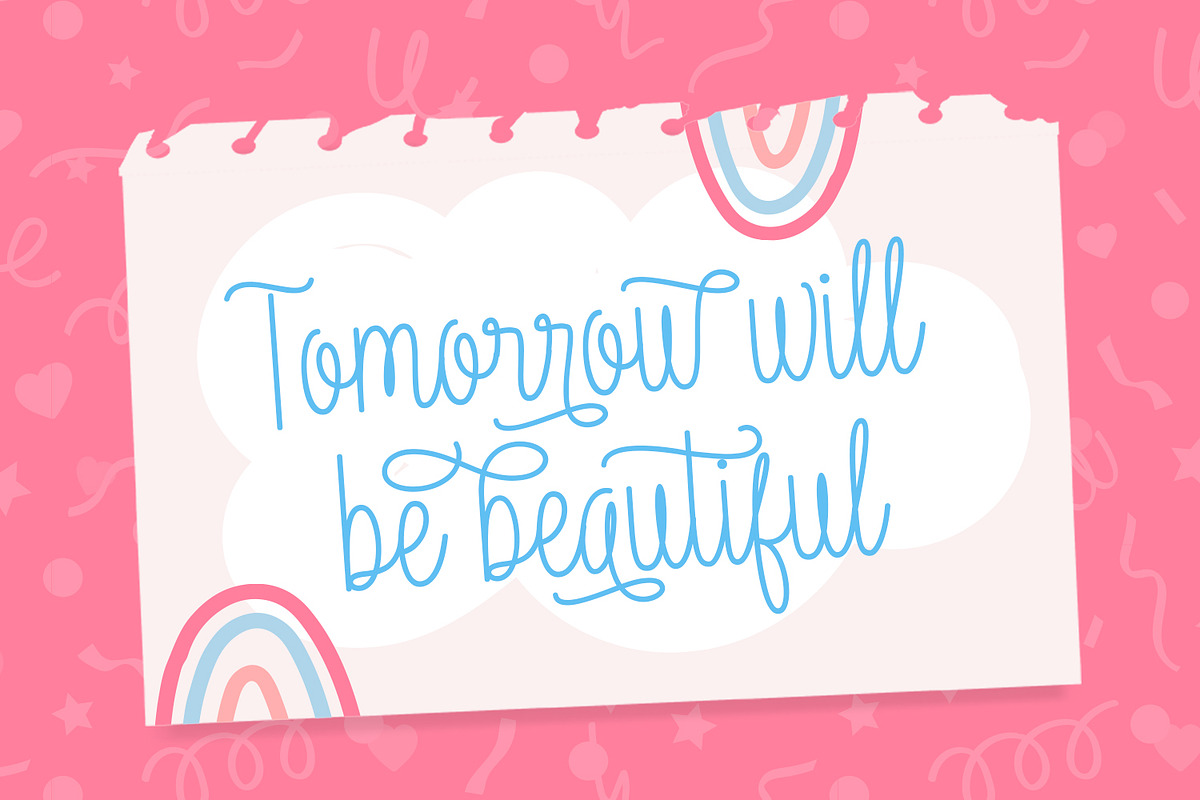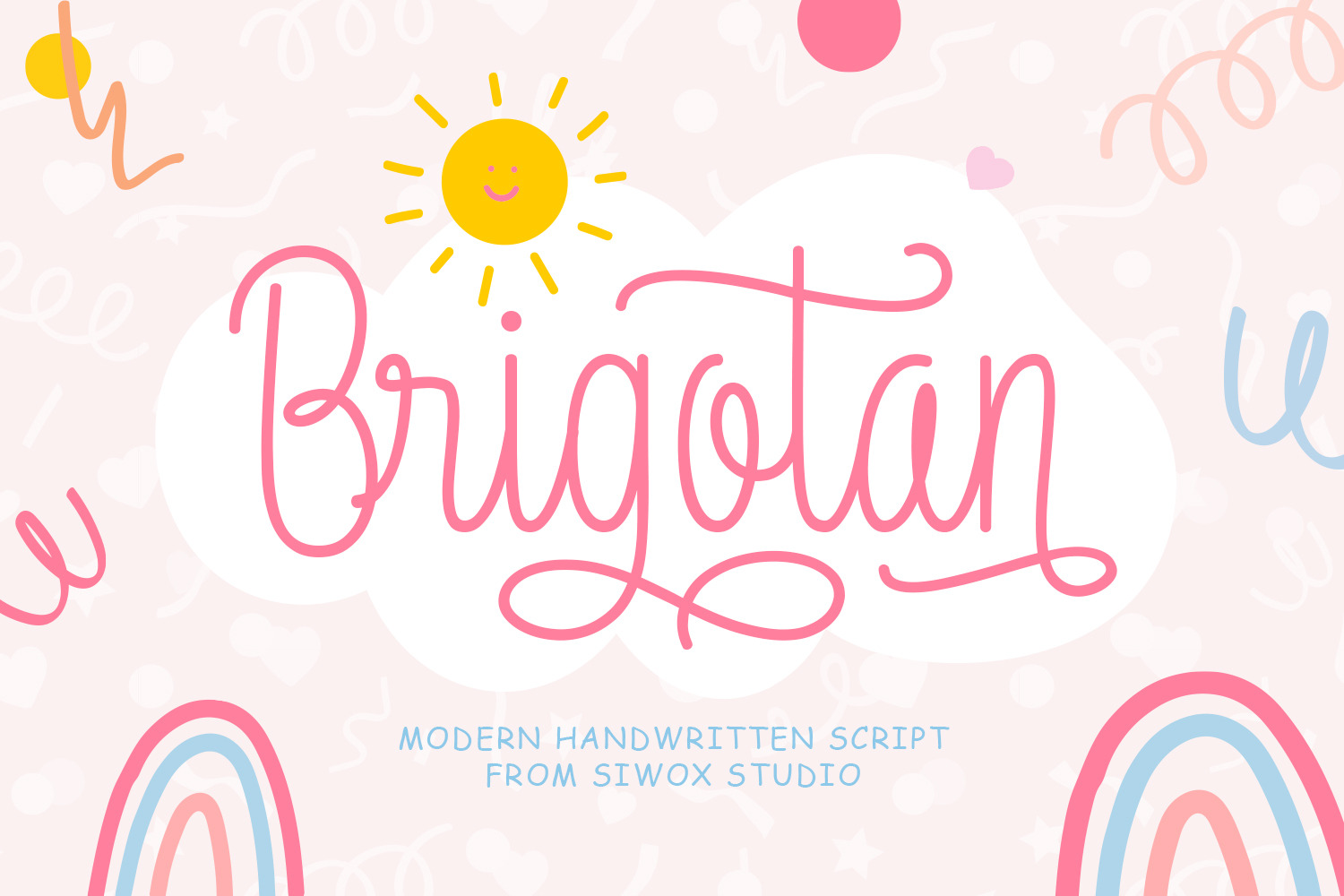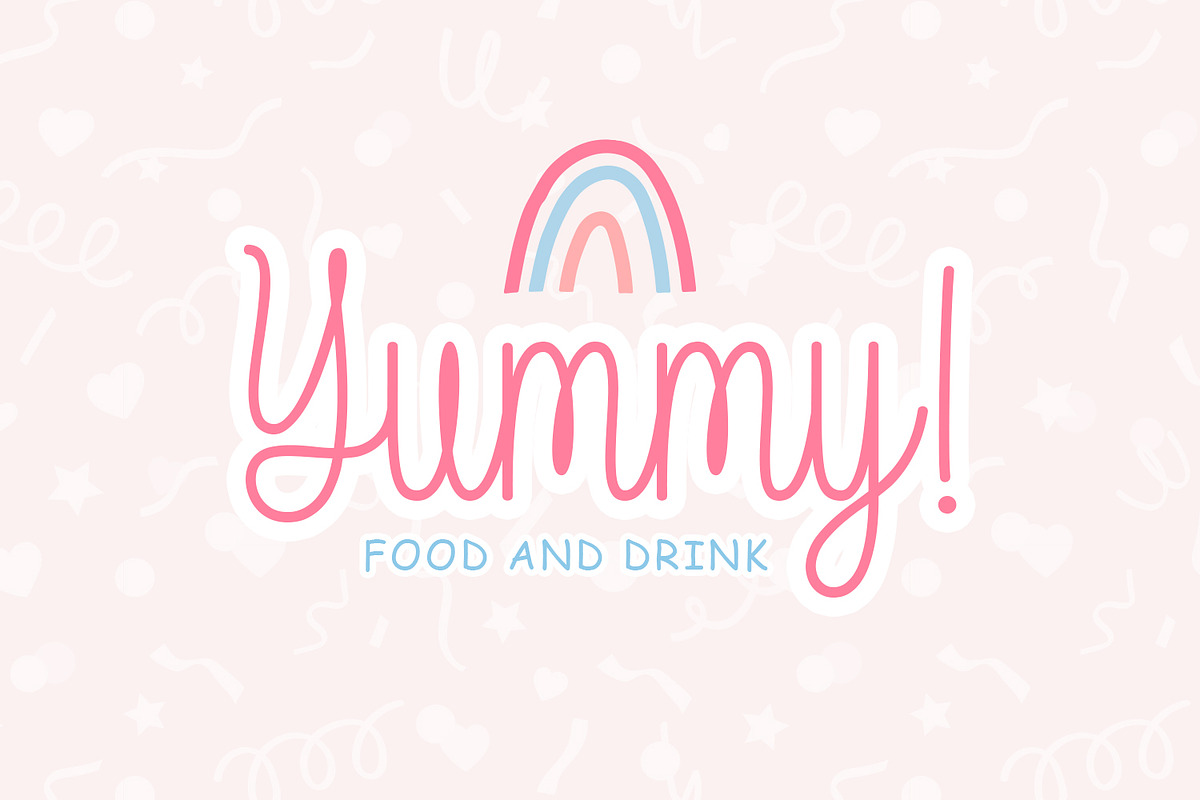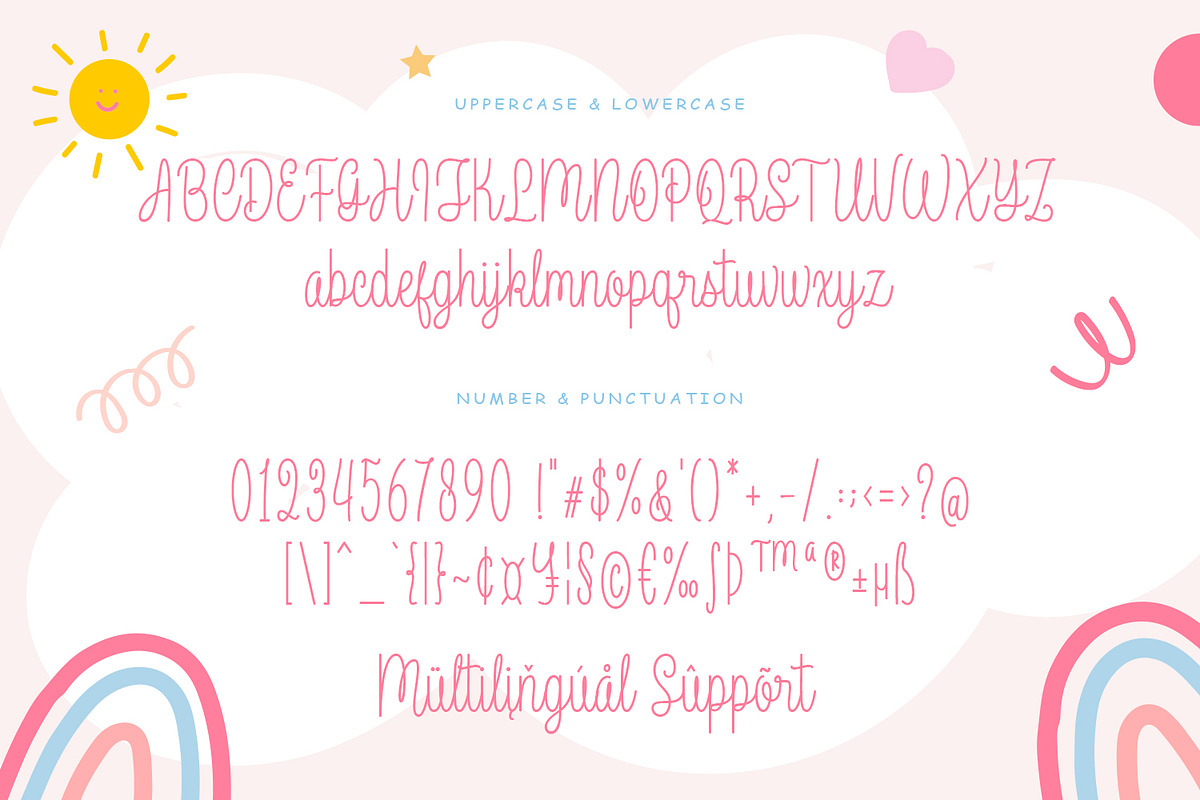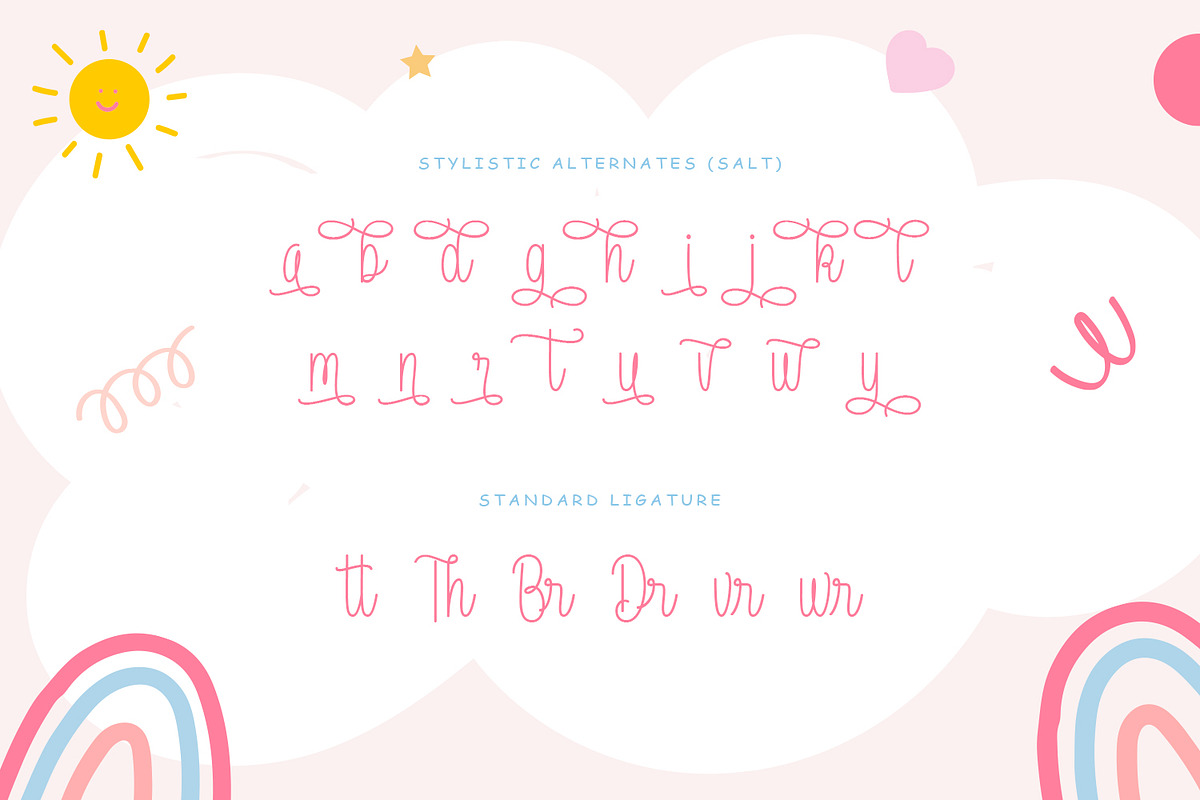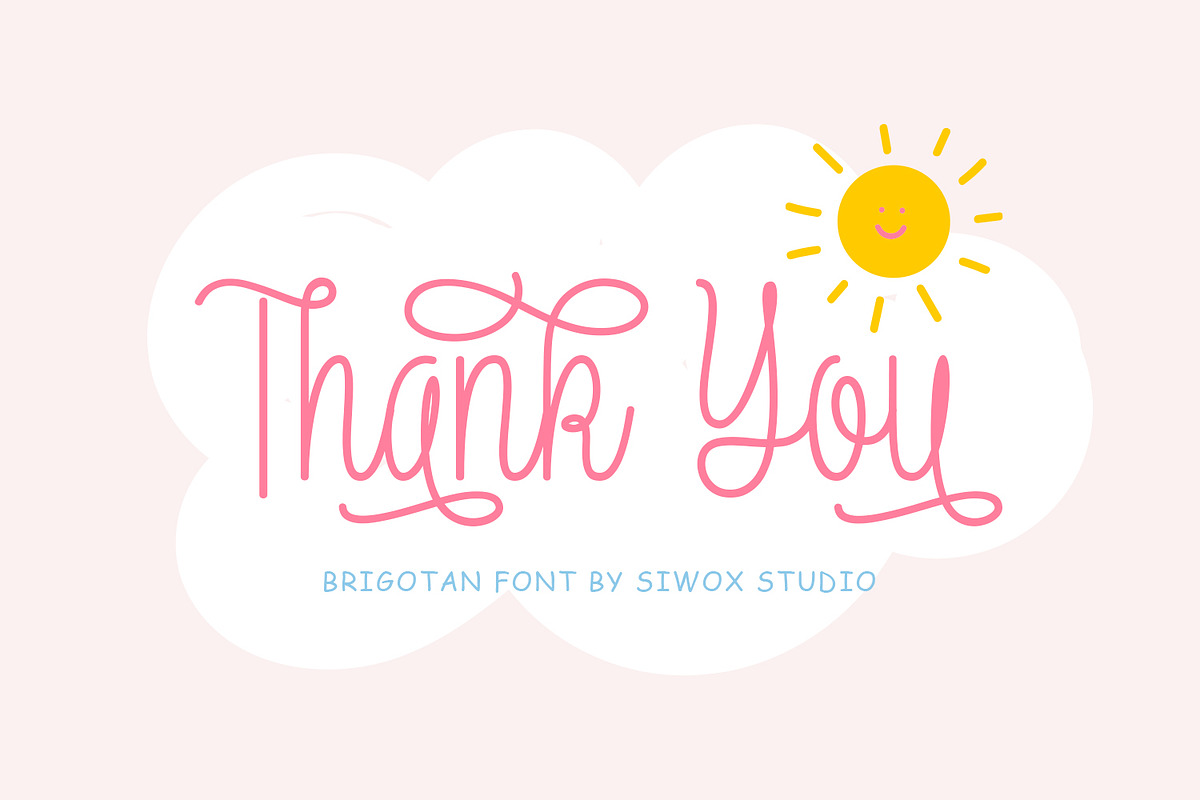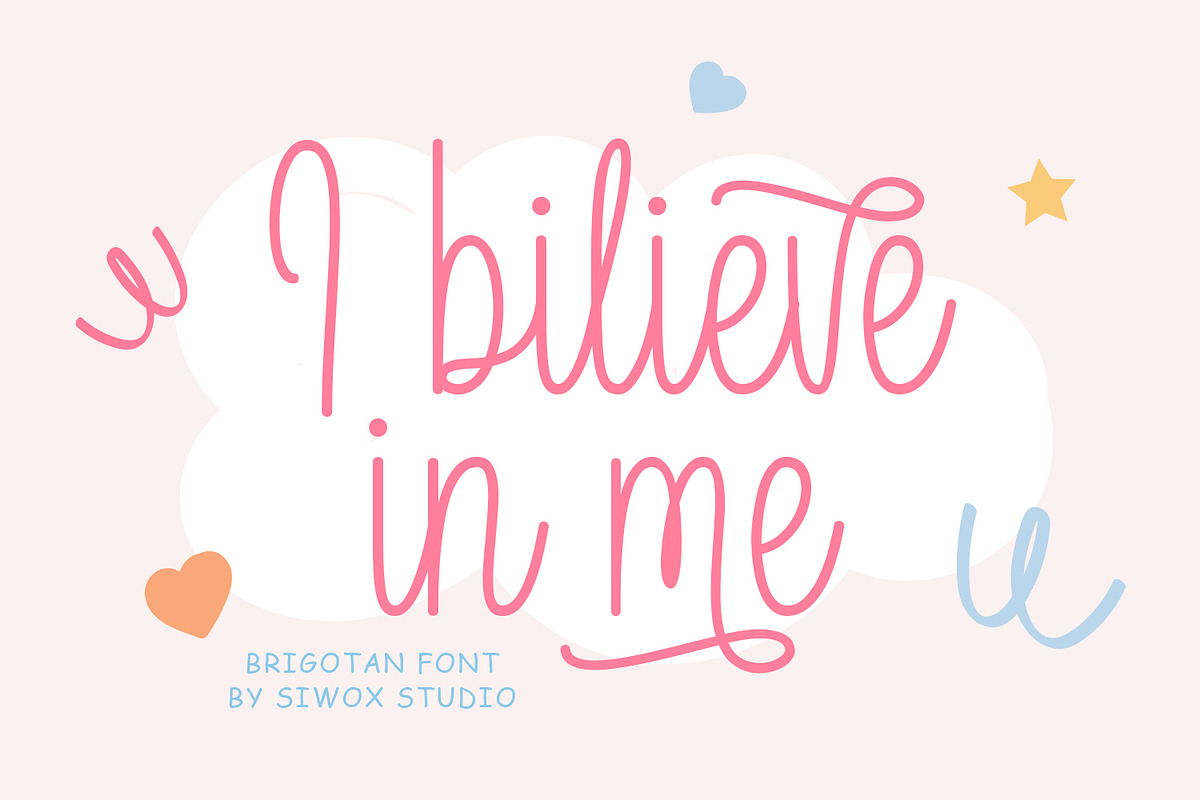
Brigotan | Cute Monoline Fonts
Brigotan is a cute monoline script font. This font’s simplicity and elegance ensure that it stands out in logos, labels, and promotional materials, adding a sweet and approachable touch to any design. With its modern yet timeless feel, Brigotan effectively conveys a sense of love and care, making it perfect for brands focused on baby products.